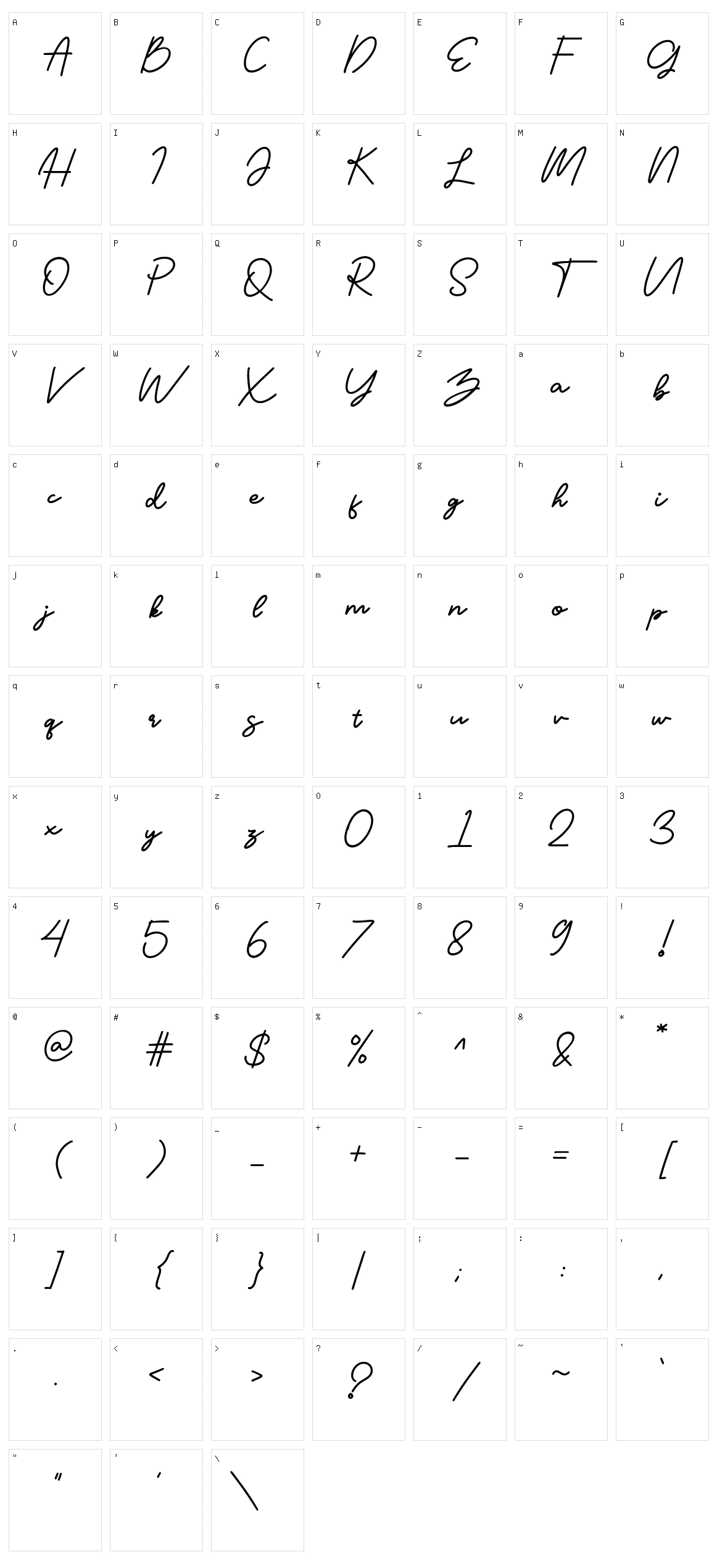
Geofanny is clean monoline script font which has layered features and OpenType features. Use this typeface to make your design vintage-like. Not only that, you can also use this without layered font to make more feminine and cute design. This font good for vintage design, t-shirt, logo, labels, badges, posters, branding design, blog headers, signatures, quotes, fashion apparel, business card, stationery and many more.
Geofanny features:
A full set of upper & lowercase characters
Numbers & punctuation
Multilingual language support
PUA Encoded Characters
+244 Glyph
OpenType Features